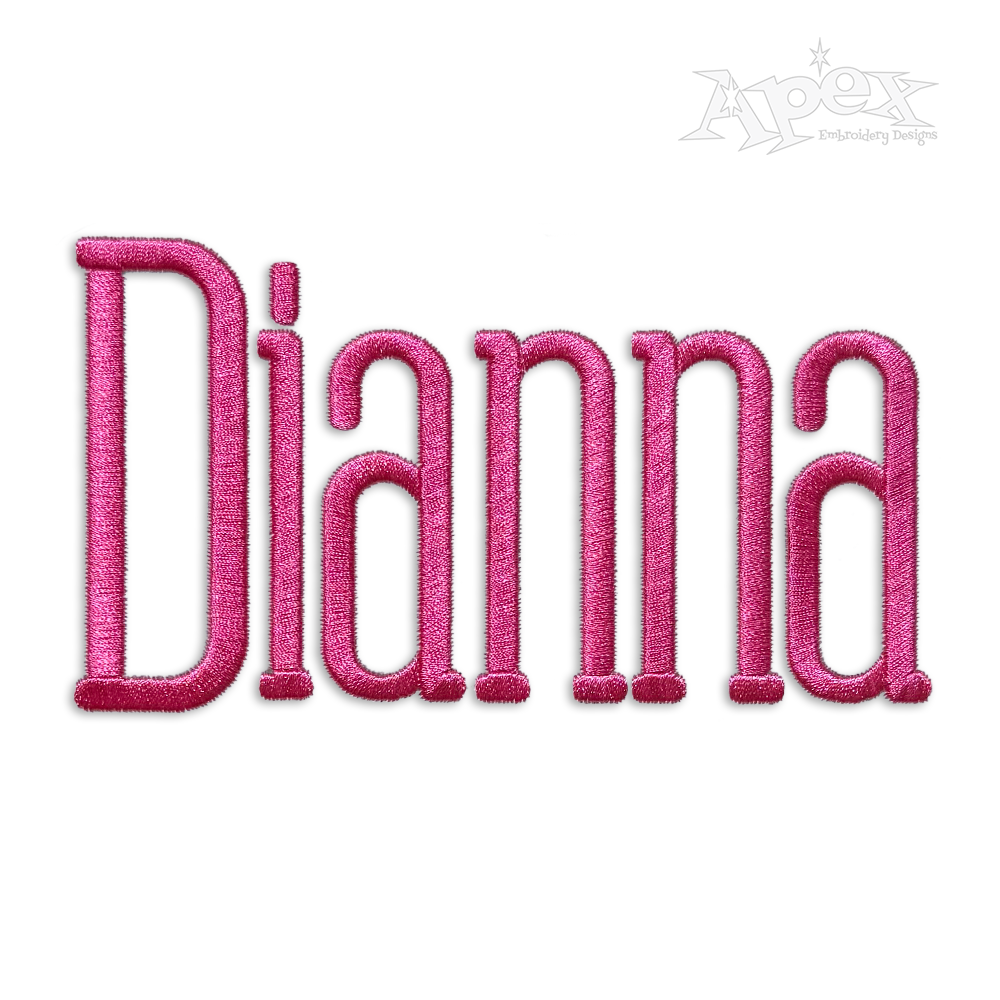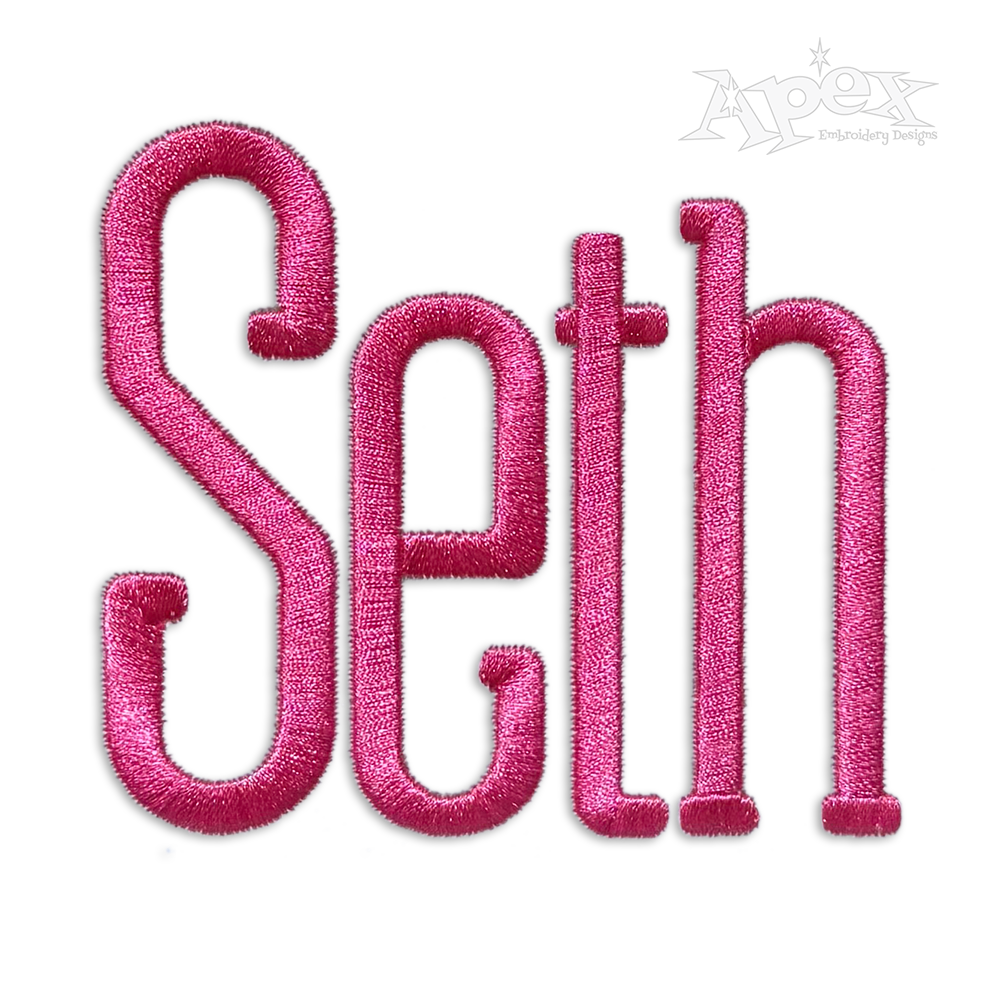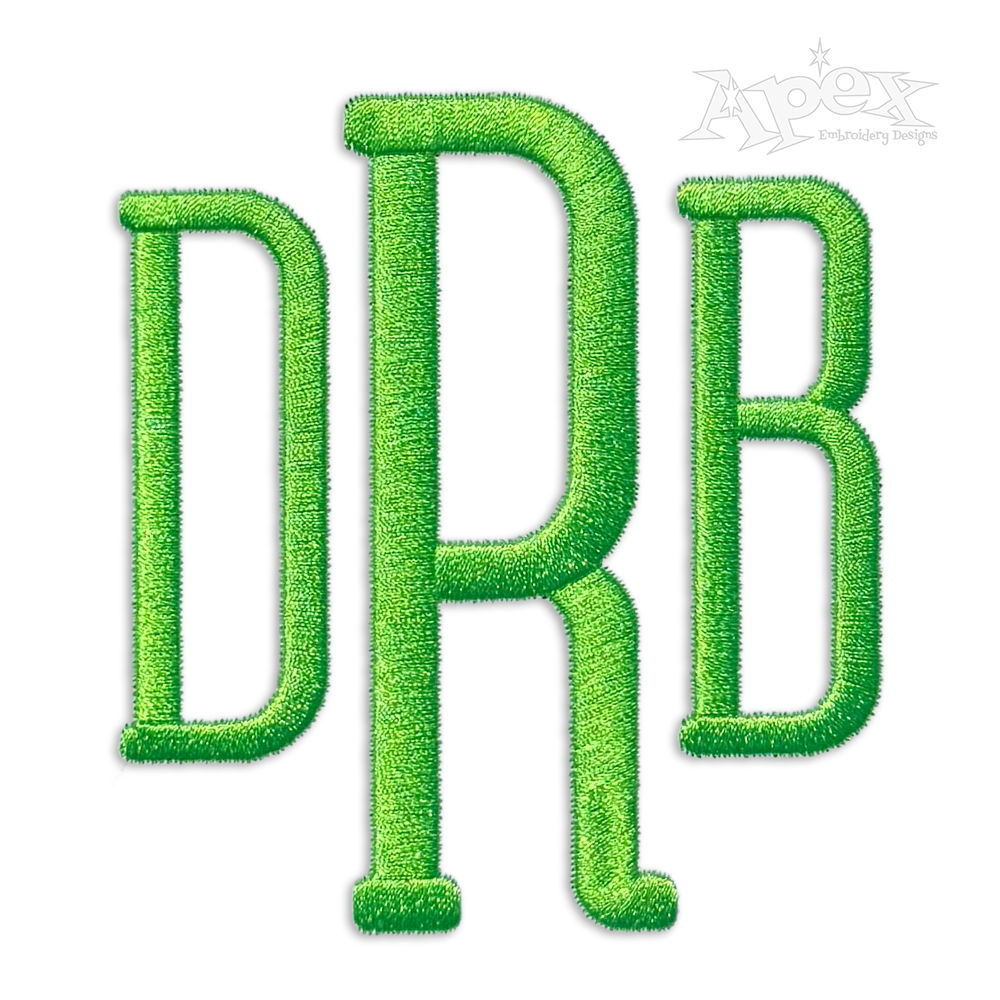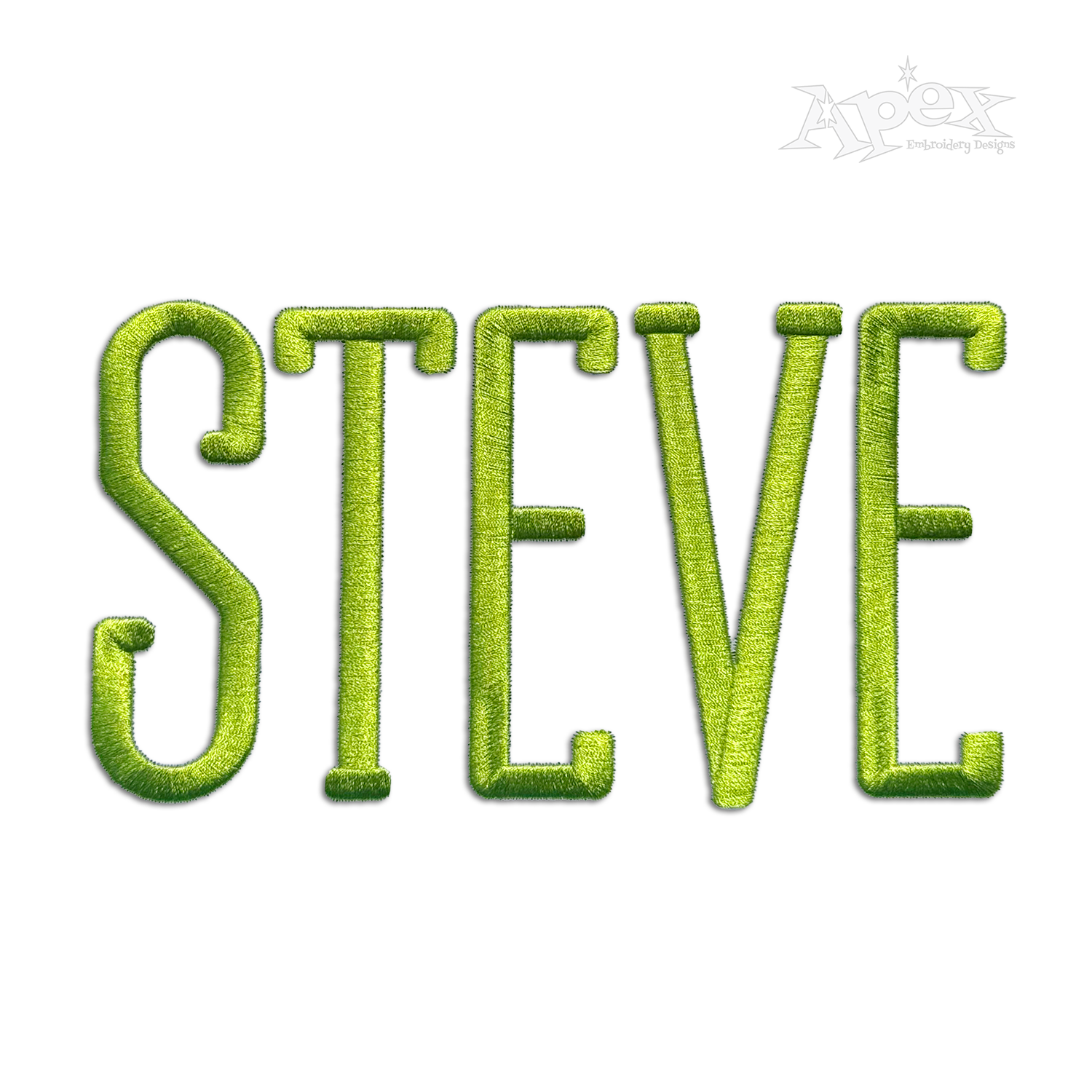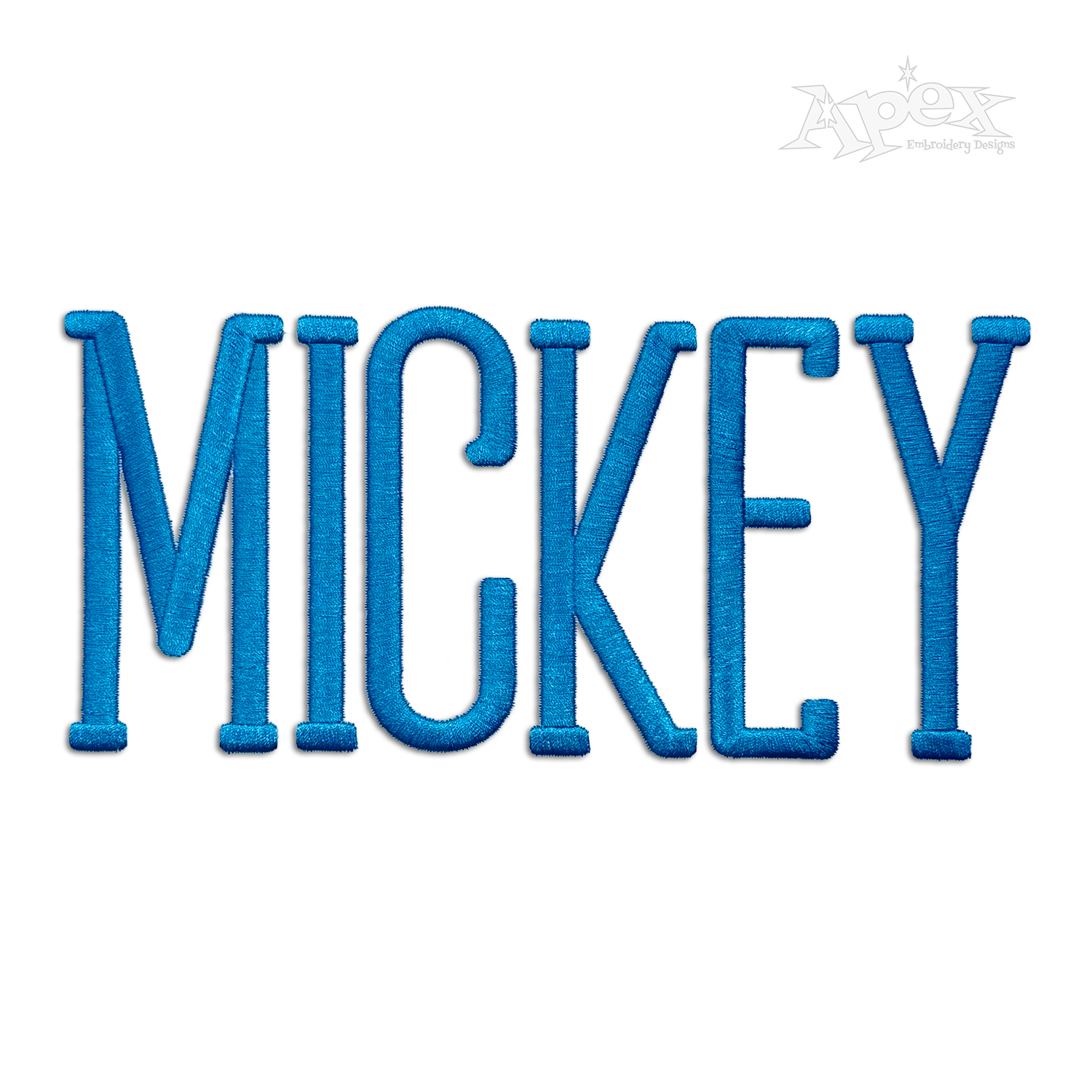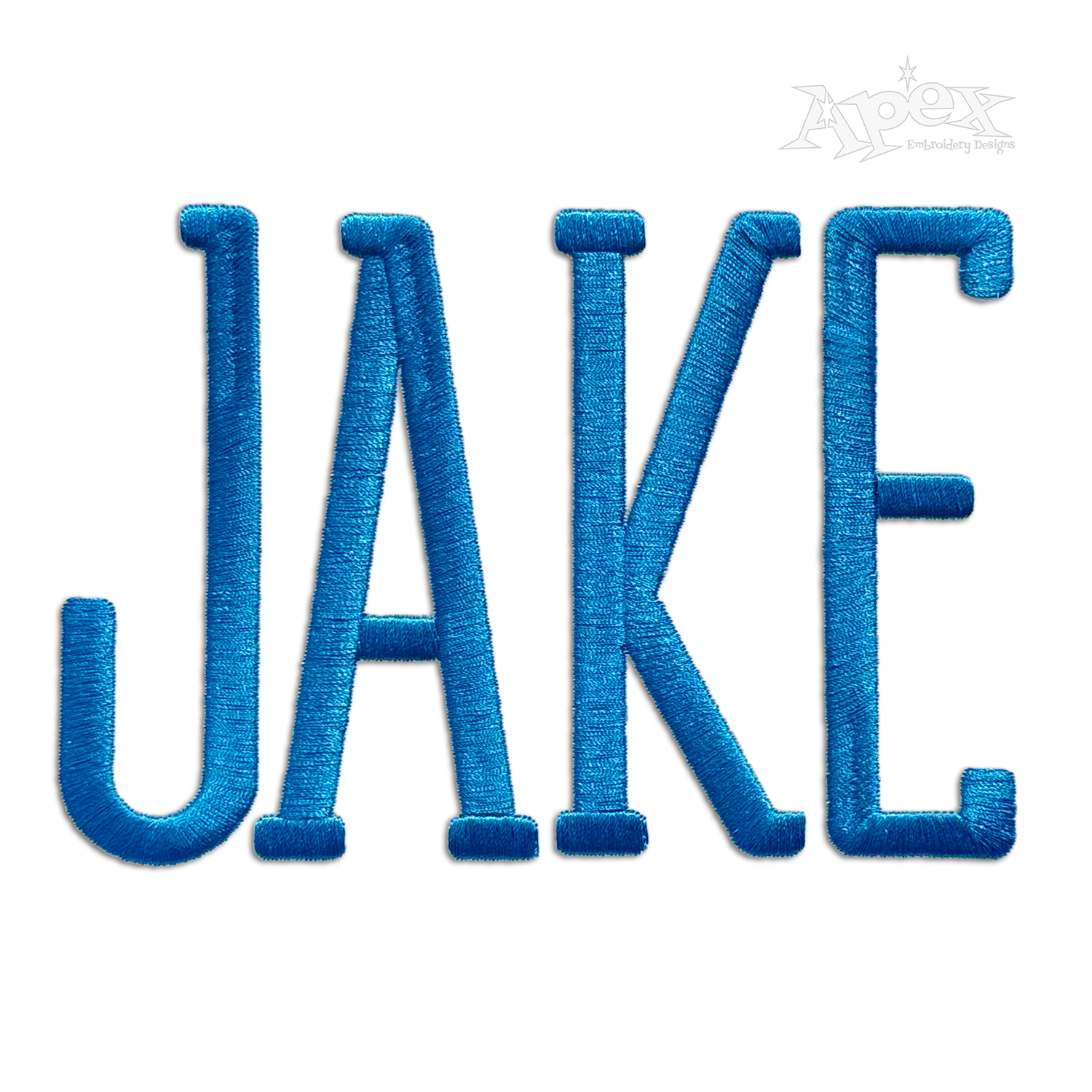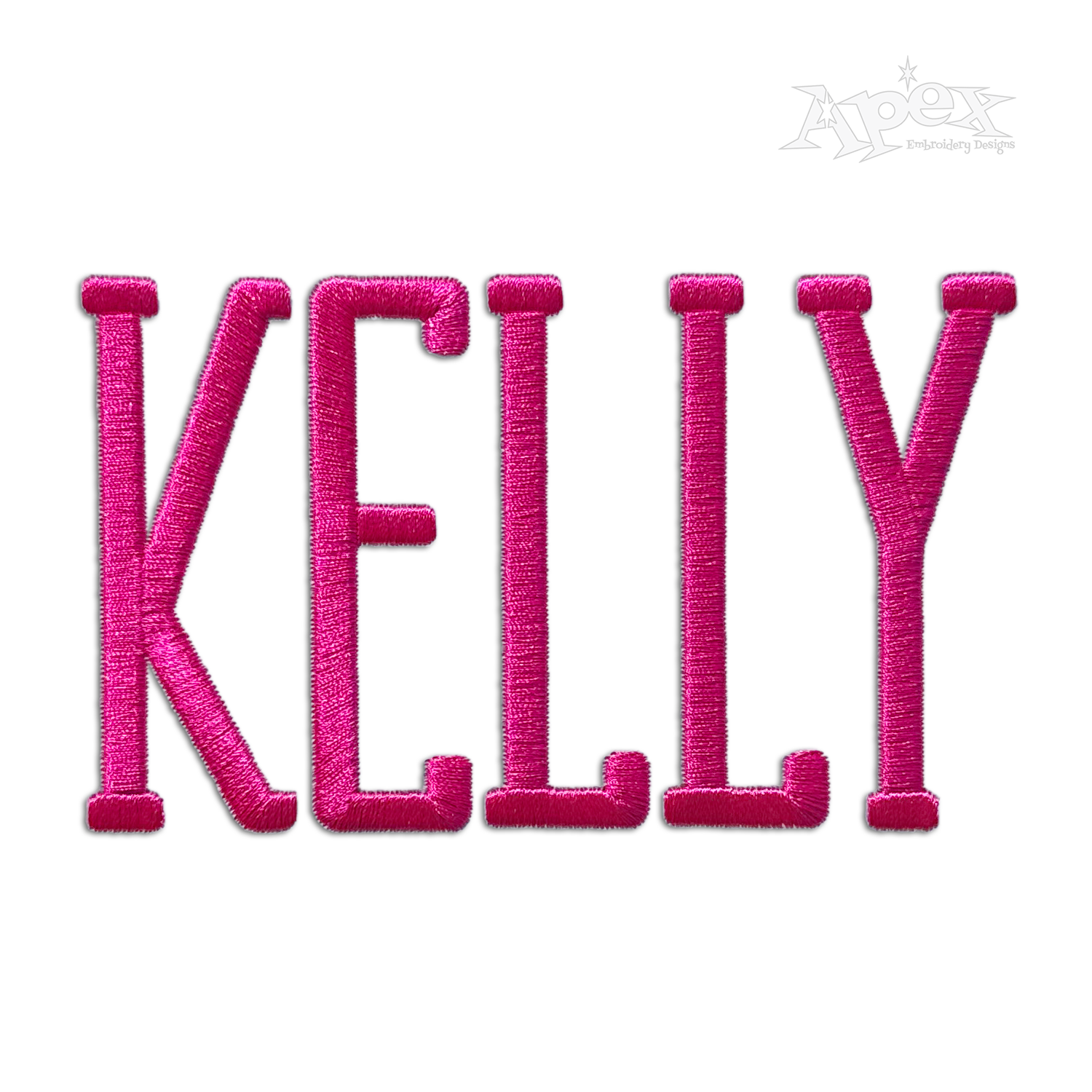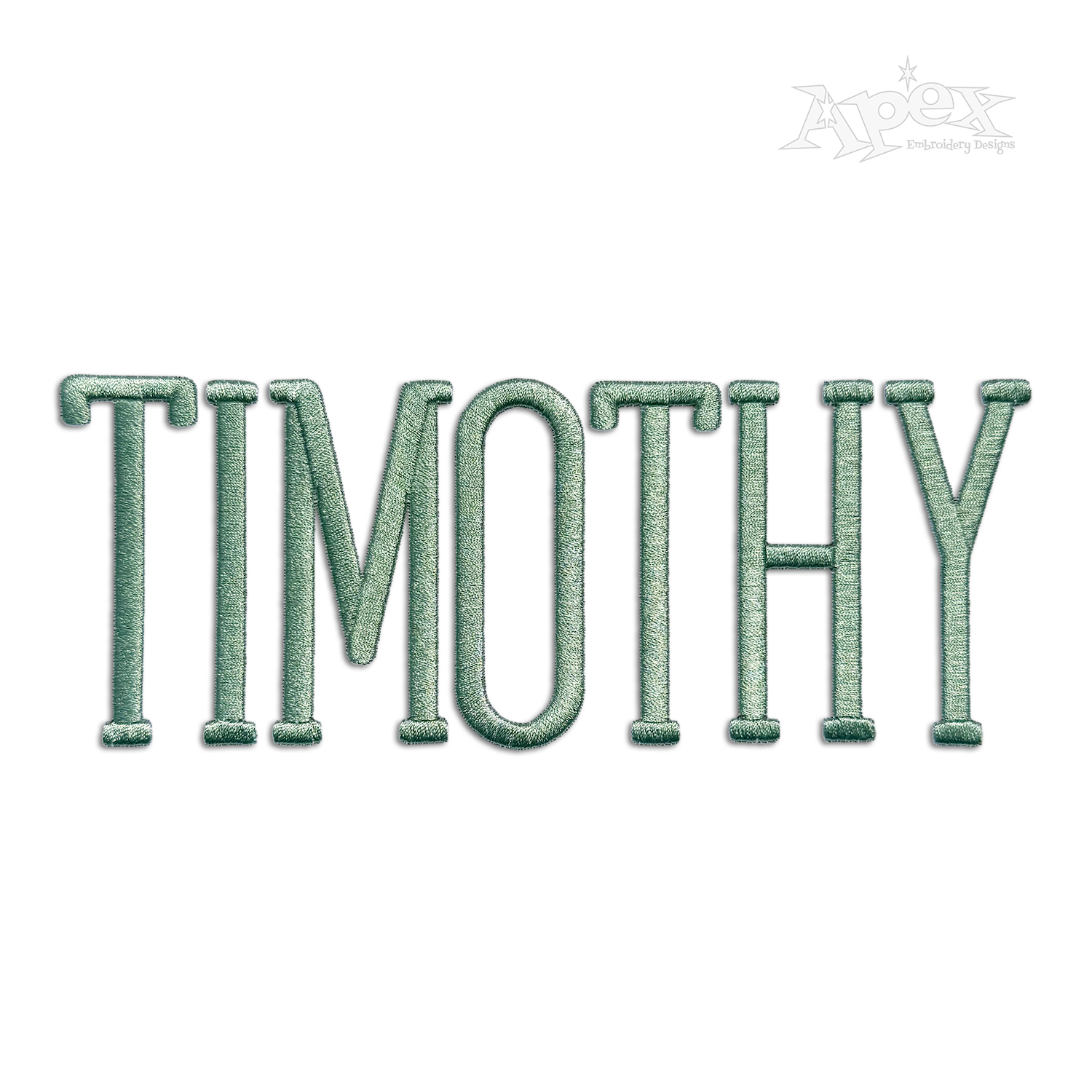
Wexford Embroidery Font
There is an undeniable majesty in vertical proportion?an architectural elegance that draws the gaze upward and commands attention through refined restraint. Inspired by the statuesque, elongated lines of mid-century bespoke tailoring and high-fashion editorial typography, the Wexford Embroidery Font was drafted to bring slender, statuesque grace to contemporary monogramming. Each slender column and gracefully calculated crossbar speaks of quiet luxury, instantly transforming ordinary textiles into heirloom statements. Running this alphabet on your machine feels less like stitching utilitarian letters and more like weaving bespoke structural art, where every satin stitch gleams with continuous, intentional light.
The Wexford embroidery collection is calibrated across four versatile heights, engineered to retain flawless column density and razor-sharp edge definition whether scaled down for subtle accents or scaled up for dramatic centerpieces:
Project Ideas for Wexford Embroidery Font
- Heirloom Cocktail Napkins & Table Runners: Create custom monogramming on crisp hemstitched linen using slender two-letter monograms that elongate the textile's drape.
- Bespoke Resort Wear & Tailored Shirting: Add discreet, tone-on-tone initials to French cuffs, collar tips, or the placket of lightweight linen resort wear.
- Bridal Trousseau & Morning Robes: Stitch romantic, statuesque single-initial monograms across silk robes, bridal slippers, and satin pajama pockets.
- Architectural Canvas Boat Bags: Showcase a towering 5-inch modern family monogram aligned centrally between the webbing straps of heavy canvas totes.
- Luxury Bedding & Guest Ensuites: Embroider matching master suite pillowcases and high-pile bath towels with a tailored, modern three-letter cipher.
- Diagonal Napkin Corners: Position a single 2-inch or 3-inch letter 1.5 inches upward from the corner along a 45-degree diagonal. The tall, slim footprint balances corner symmetry without overwhelming delicate open-work borders.
- Vertical Pocket Alignments: On breast pockets and shirt cuffs, position Wexford's elongated forms slightly above center. The narrow width naturally fits tight pocket dimensions that traditionally cramp wider serif fonts.
- Center Chest Placements: For robes, hoodies, and jackets, center the primary letterform 7 to 9 inches down from the shoulder seam. The vertical sweep produces a slimming, flattering visual silhouette.
- Parallel Flange Borders: Align lowercase phrases or offset initial combinations along the inner seam of pillow sham borders to echo modern interior styling.
Wexford Embroidery Font Craft & Letterform Details
Digitizing a tall, ultra-slim alphabet presents a rare technical challenge: maintaining clean column presence without causing stitch bunching or textile pulling along narrow vertical paths. Wexford resolves this through custom-calculated underlay profiles. Beneath every visible satin stroke lies a continuous, center-run travel path that stabilizes the fabric grain, followed by precise zigzag anchoring that lifts the top satin stitching into high relief.
The satin stitch angles have been manually rotated throughout every curve and stem. In letters like the uppercase 'B', 'P', and 'R', the transition from the statuesque vertical backbone into the tightly compressed rounded loops is seamless, eliminating abrupt thread breaks and jagged edges. The lowercase characters have been thoughtfully scaled with elongated ascenders and descenders to harmonize effortlessly with the soaring capitals. The result is a smooth, liquid-like stitch flow that catches the light uniformly, ensuring your finished embroidery looks impeccably tailored, smooth to the touch, and enduringly refined.